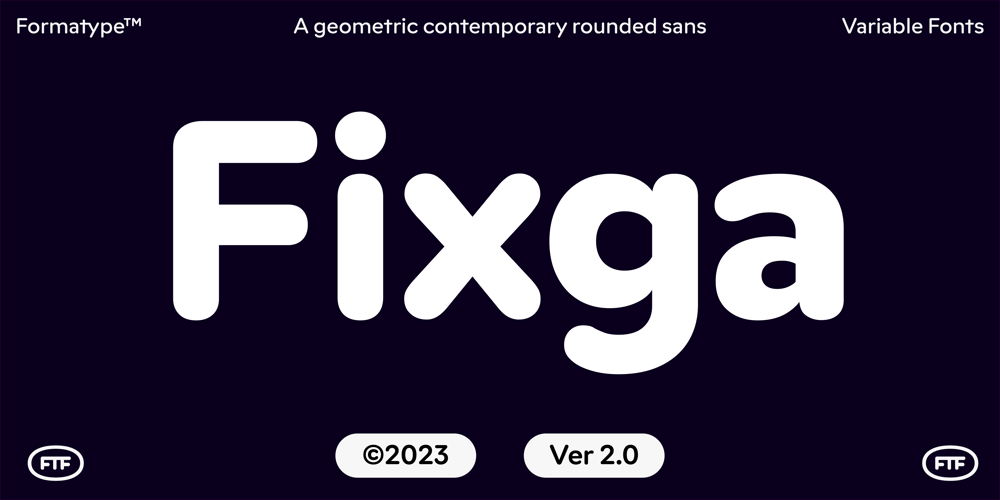
Fixga Font Family was designed by Deni Anggara and published by Formatype Foundry. Fixga contains 18 styles and family package options. BehanceFixiga is a Modern rounded geometric sans with experiment forms to make powerful visual, a combining with the rounded and some sharp cutting edges.Fixga family comes with 8 weights, from ExtraLight to Black upright Italic, In addition Fixga also support OpenType alternate characters, Alternate SS.01 is offer with typewriter look and SS.02 is offer with neutral look with single storey “a” and “g”Fixga also support several OpenType features include: ligatures, tabular figures, fractions, and language support for extended Latin Icons and symbols.